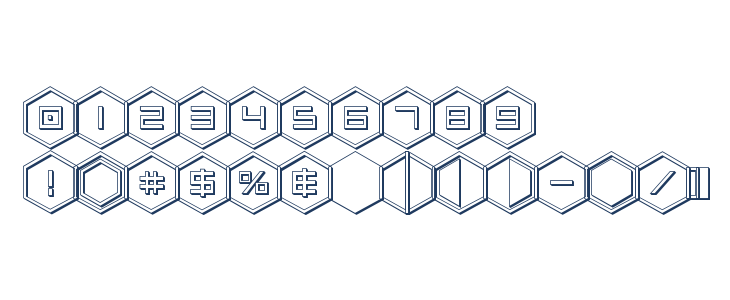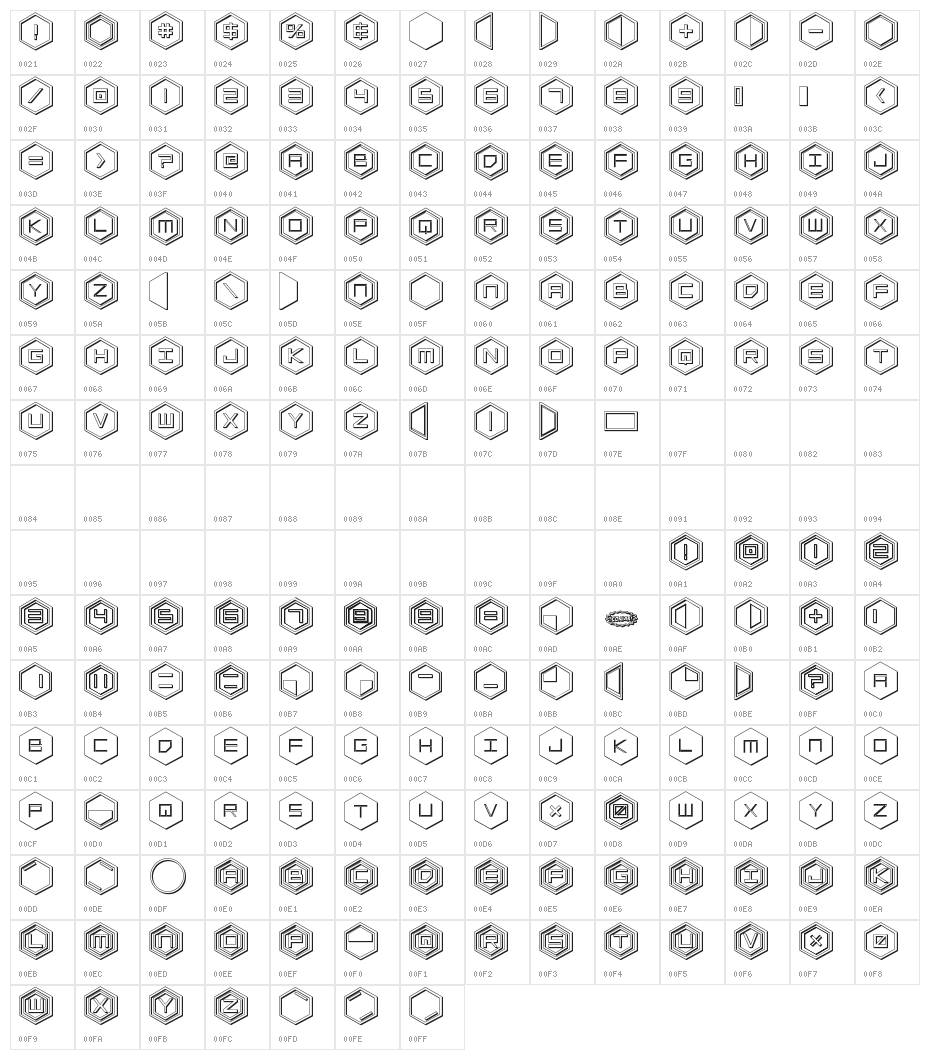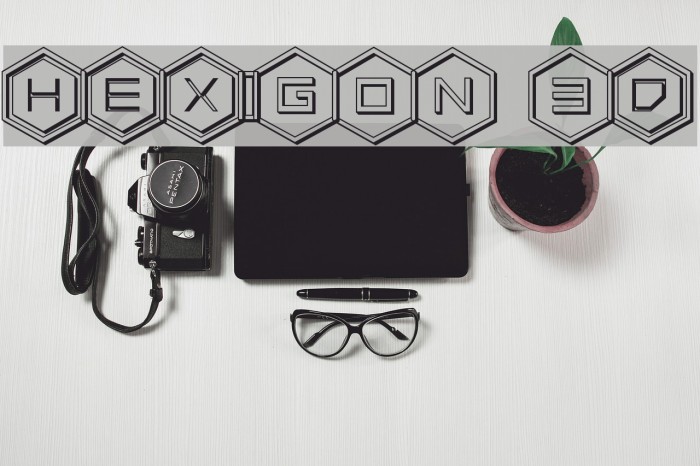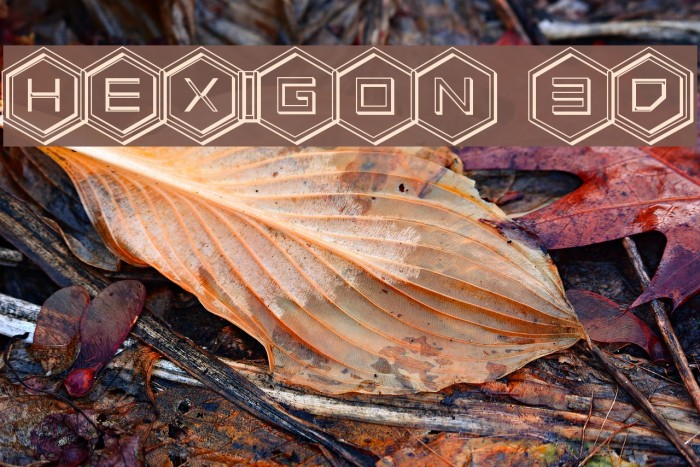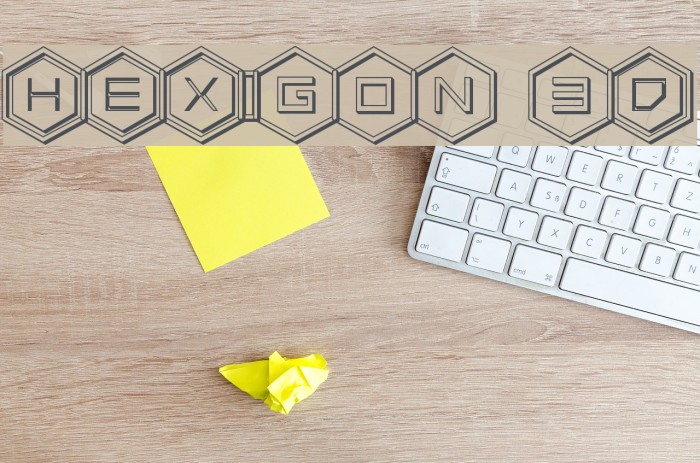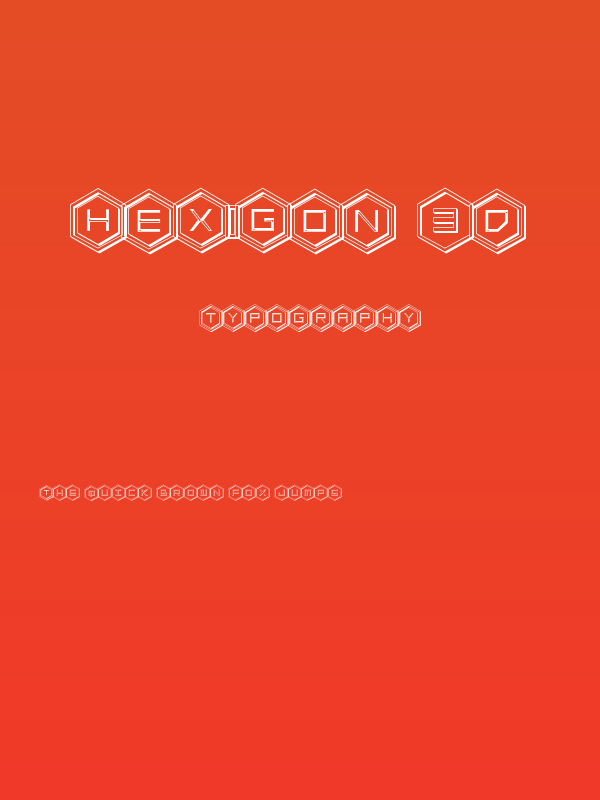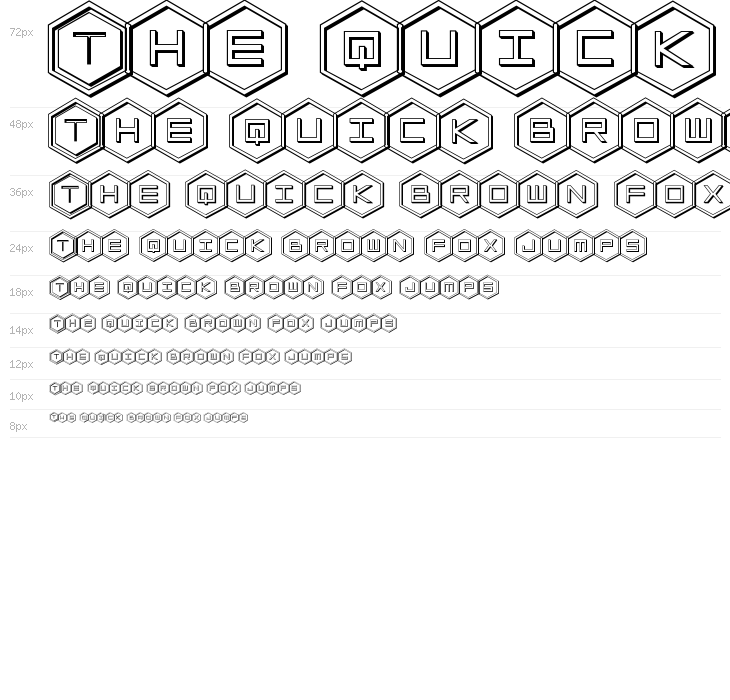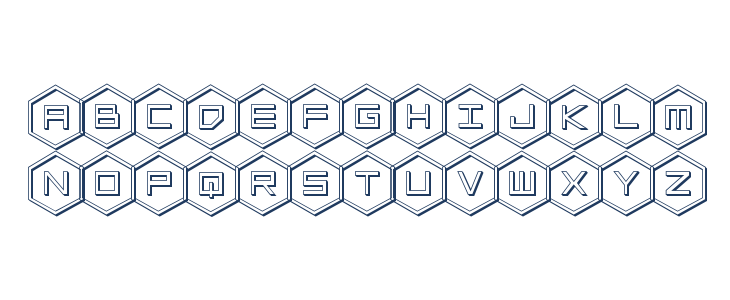
HEX:gon 3D Font
HEX:gon 3D Description
This font features a unique 3D hexagonal design, where each character is encapsulated within a hexagon, creating a futuristic and geometric appearance. The letters and numbers are bold and angular, with a distinct three-dimensional effect that gives depth and a sense of movement. The font is highly decorative, making it ideal for projects that require a modern and eye-catching aesthetic. The consistent hexagonal shape around each character ensures uniformity, while the internal line work adds complexity and visual interest. This font is perfect for creating standout headlines, logos, and posters that demand attention.
| Overall Style | Futuristic, Geometric, Modern |
| Proposed Projects | Ideal for sci-fi themed designs, tech-related branding, futuristic posters, and innovative product packaging. |